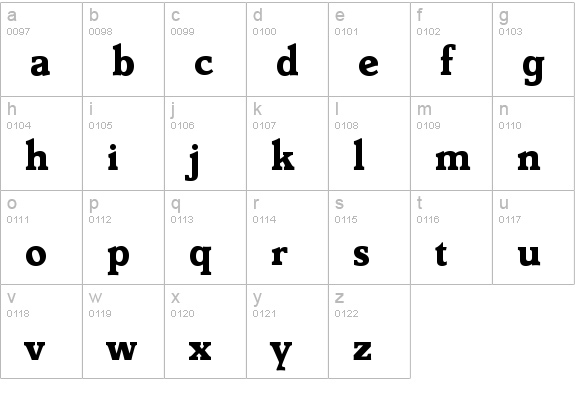
Derringer-Bold is a strong, high-contrast variant in the Derringer typeface family \xE2\x80\x94 well suited to headlines, attention-grabbing titles, and strong calls-to-action.
Derringer-Bold is a stunning and versatile font that exudes strength and modernity. With its bold and impactful design, this font is perfect for making a bold statement in your designs. Derringer-Bold is ideal for headlines, logos, posters, and any project that requires a strong and eye-catching typeface. The best part about Derringer-Bold is that it is completely free to download at FontsMarket.com. You can easily access this amazing font and elevate your design projects without any cost. Don't miss out on this fantastic opportunity to add Derringer-Bold to your font collection and take your designs to the next level. Download now and let your creativity shine with Derringer-Bold!